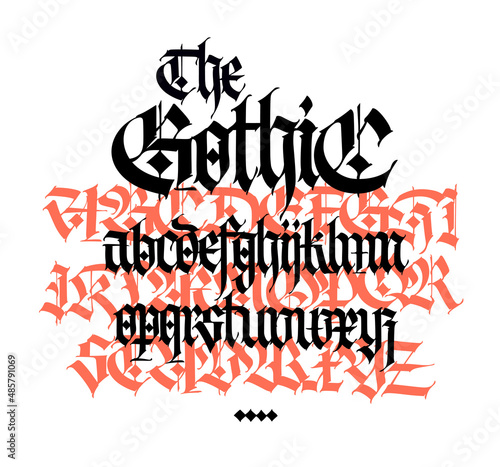
Gothic. Uppercase and lowercase letters. Beautiful and stylish calligraphy. Elegant european font for design. Medieval modern style. Elegant pattern for fabric and packaging.